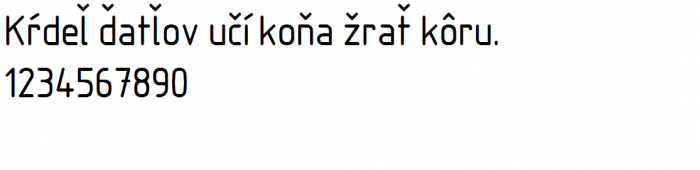
• Many times when I wanted standardized font for a drawing, what I found did not have some of diacritics. So I made me my own backup, that follows the norm for vertical letter form B where it is possible with some compromises.
Still work in progress, cant find way to make smooth zero or brackets with large arcs.
Diameter sign: U-2205, square root sign: U-221A
Arrows: narrow U-2196,U-2197, wider U-2190, U-2192, line U-2191
Very well made! But there's an extra brick to the right of the ÷ sign, and ù/ú are backwards.
@V. Sarela (Yautja) Thank you for your words and for taking so close look you could spot my mistakes. I corrected it and also changed some of the glyphs to follow newer norm edition with more proper style of diacritic (ľ, ď, ť). But now will have to play with kerning probably. Also added my preffered form of 7.
Nice font and great work, and I'm with Yautja one more time. Two little points: Î and Ï are incompletes, and the spanish ¿ and ¡ must be down like the descenders of p or q. Saludos.
Thank you for praise Elmoyenique and for the suggestions. I was not aware about the rotated marks shift (I only tried to learn Spanish from a small book for self-taught and did not catch that detail). Tried to correct them. Also finished the Î and Ï.
@Peter: Wow, what a stellar rounded font you made here pal. 10/10
Thank you @Sed4tives, I only tried to mimic what is in the norm. I admit searching for ways how to do it within limitation of bricks has became a game for me, (like tetris).
Kind of looks like the font on some Toshiba laptop keyboards…
@BWM seems you are right, I never realised that, util recently stumbled upon some image.
I think they look just tiny bit thicker, but it might also be flaw of the photo.